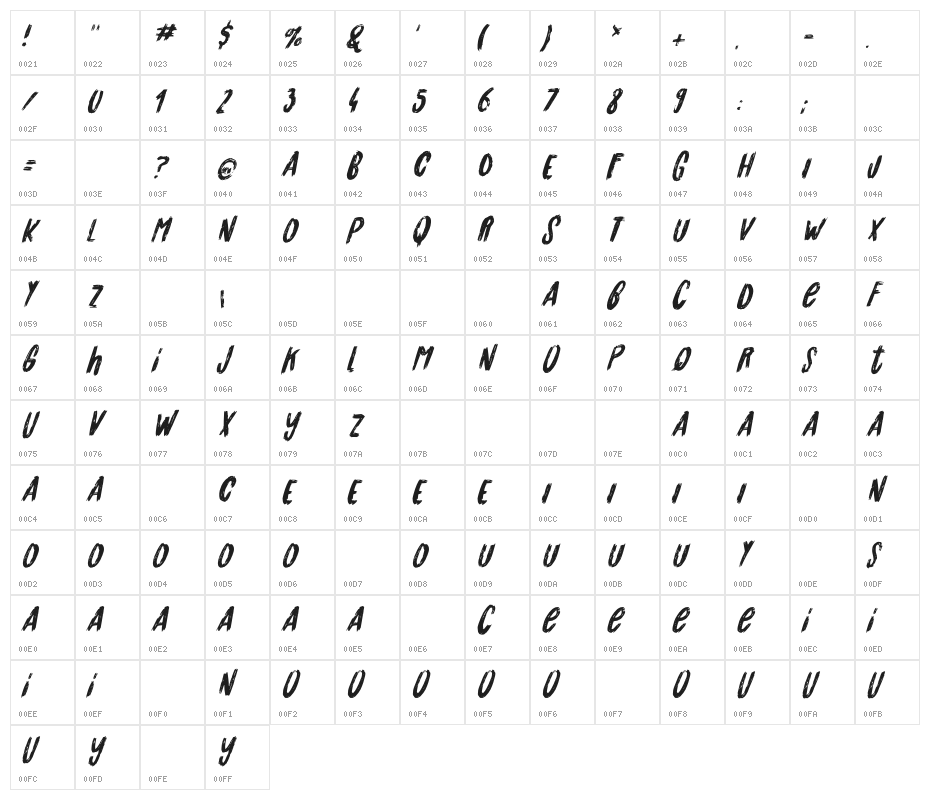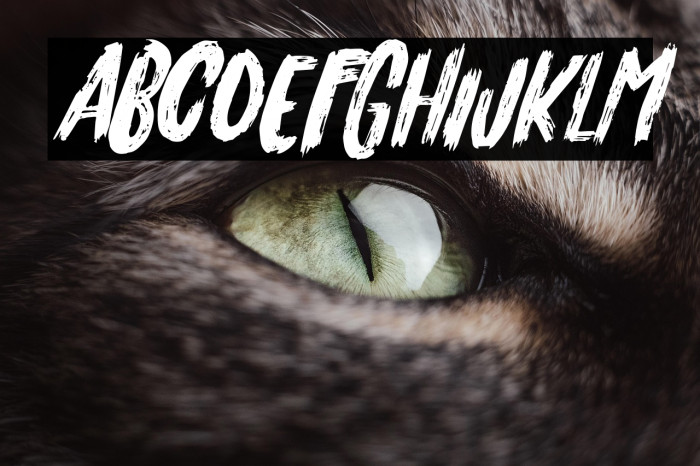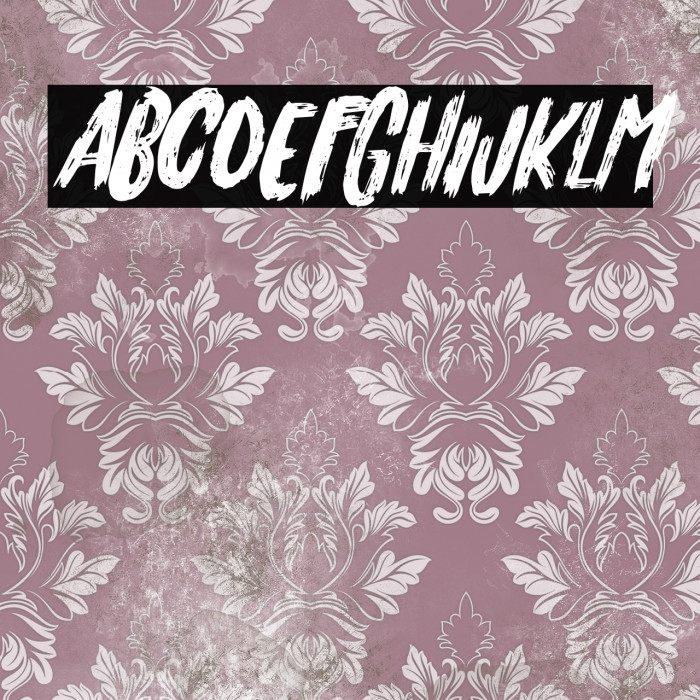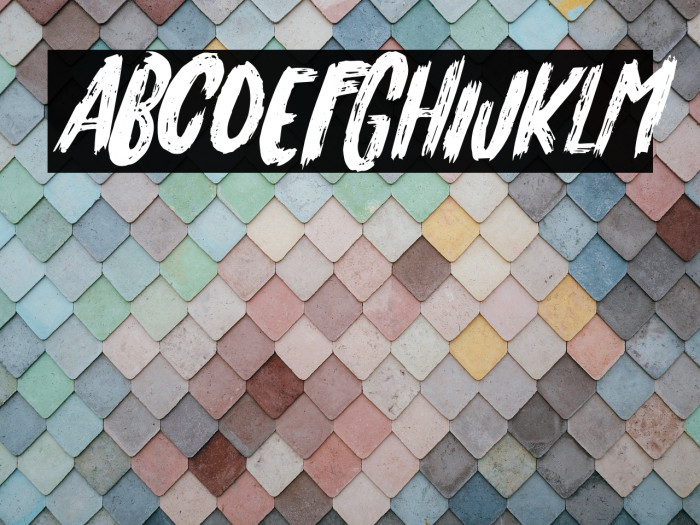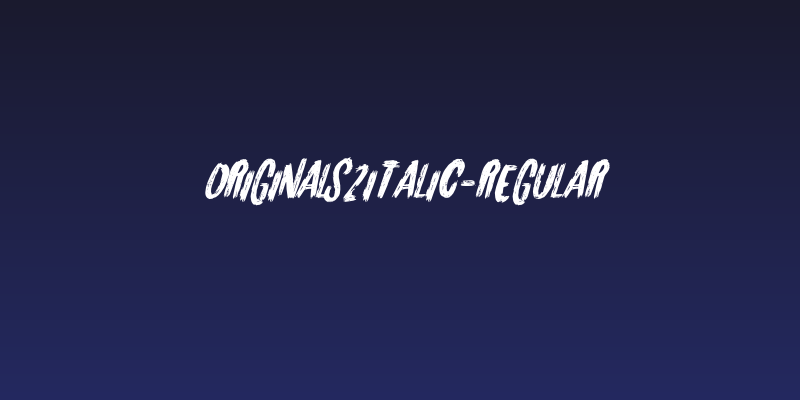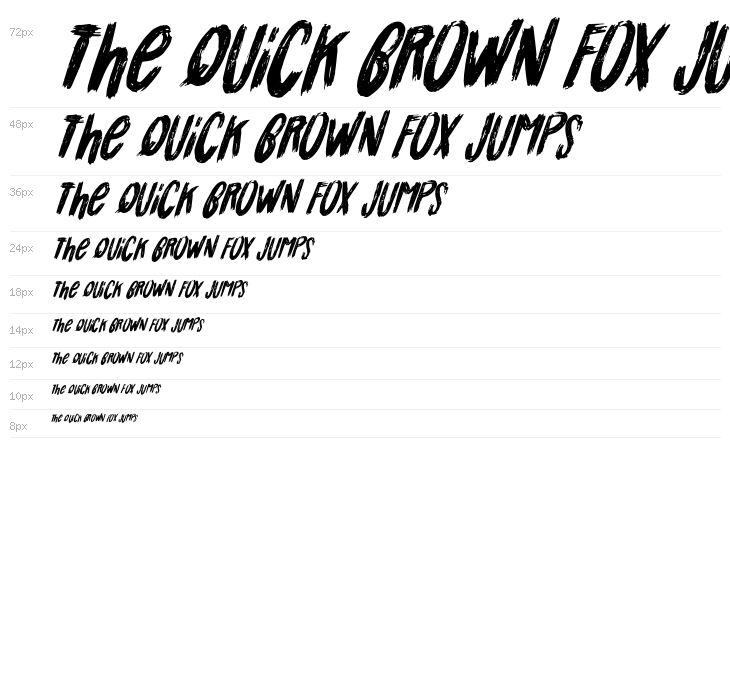
Originals2Italic-Regular Font
Originals2Italic-Regular Description
This font features a bold, energetic style with a brush-like texture that gives it a dynamic and expressive appearance. The letters are slanted, adding a sense of movement and urgency. The strokes are uneven, with varying thicknesses that create a hand-painted effect. This font is highly decorative, with a raw and edgy aesthetic that makes it stand out. The uppercase and lowercase letters maintain a consistent style, while the numbers and special characters complement the overall design. The font's unique character makes it suitable for projects that require a bold and artistic touch.
| Proposed Projects | Ideal for posters, album covers, branding, and any project needing a bold artistic flair. |